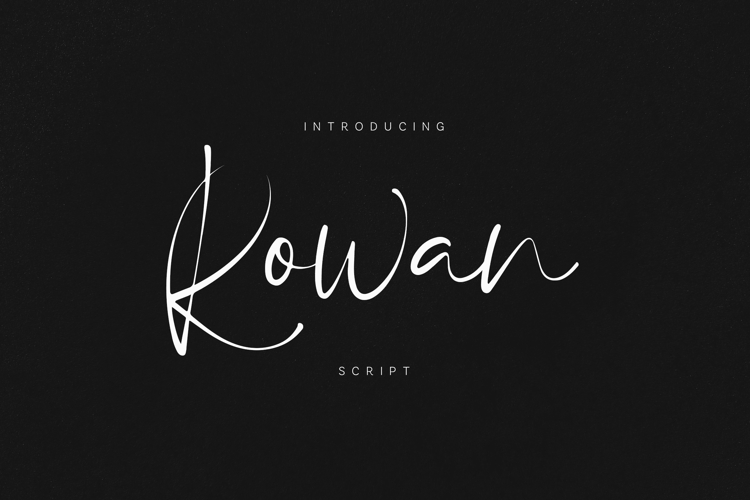
Rowan Handwritten Script Font
Rowan is a natural handwritten script font designed to feel warm, and effortlessly human. With its smooth strokes, relaxed rhythm, and organic flow, Rowan captures the authenticity of real handwriting while remaining clean and highly legible.
This font is perfect for quotes, branding, logos, social media posts, invitations, packaging, greeting cards, journals, posters, and lifestyle designs. Its casual yet expressive character makes it ideal for projects that need emotion, softness, and approachability without looking messy or unrefined.
Rowan works beautifully both in short statements and longer text, offering a natural handwritten feel that connects instantly with the viewer. It pairs especially well with minimal serif or sans-serif fonts for balanced, modern layouts.
The font includes uppercase and lowercase letters, numerals, punctuation, symbols, and extensive multilingual support, making it suitable for international and professional use.
If you’re looking for a script font that feels honest, gentle, and modern, Rowan brings handwritten warmth to your typography.